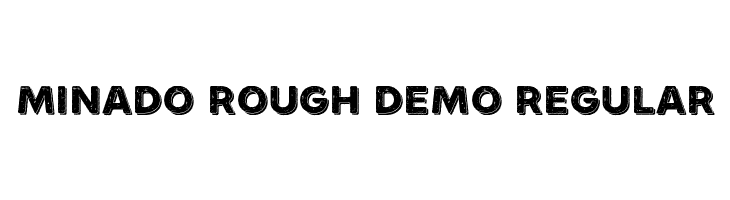
A bold, geometric font with a strong, industrial feel.
A fluid, elegant script font with a handwritten style.
An elegant script font with flowing lines and high contrast, ideal for formal uses.
A bold, expressive script font with a playful, handwritten style.
A bold, rough-textured font with a vintage, handcrafted appearance.
A modern, geometric font with clean lines and a futuristic style.
A bold, geometric font with a double-line structure, perfect for modern designs.
A bold, geometric font with a modern and futuristic style.
A modern, italic font with sleek curves and sharp edges, ideal for dynamic designs.